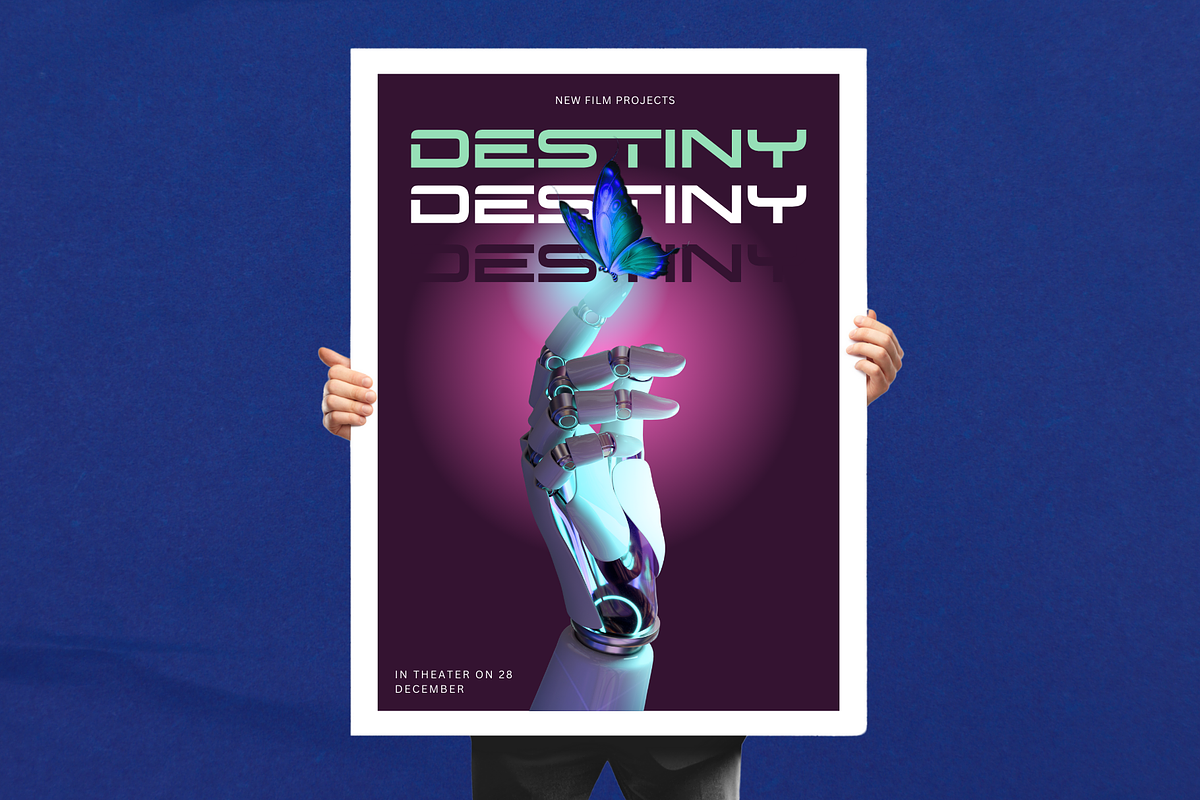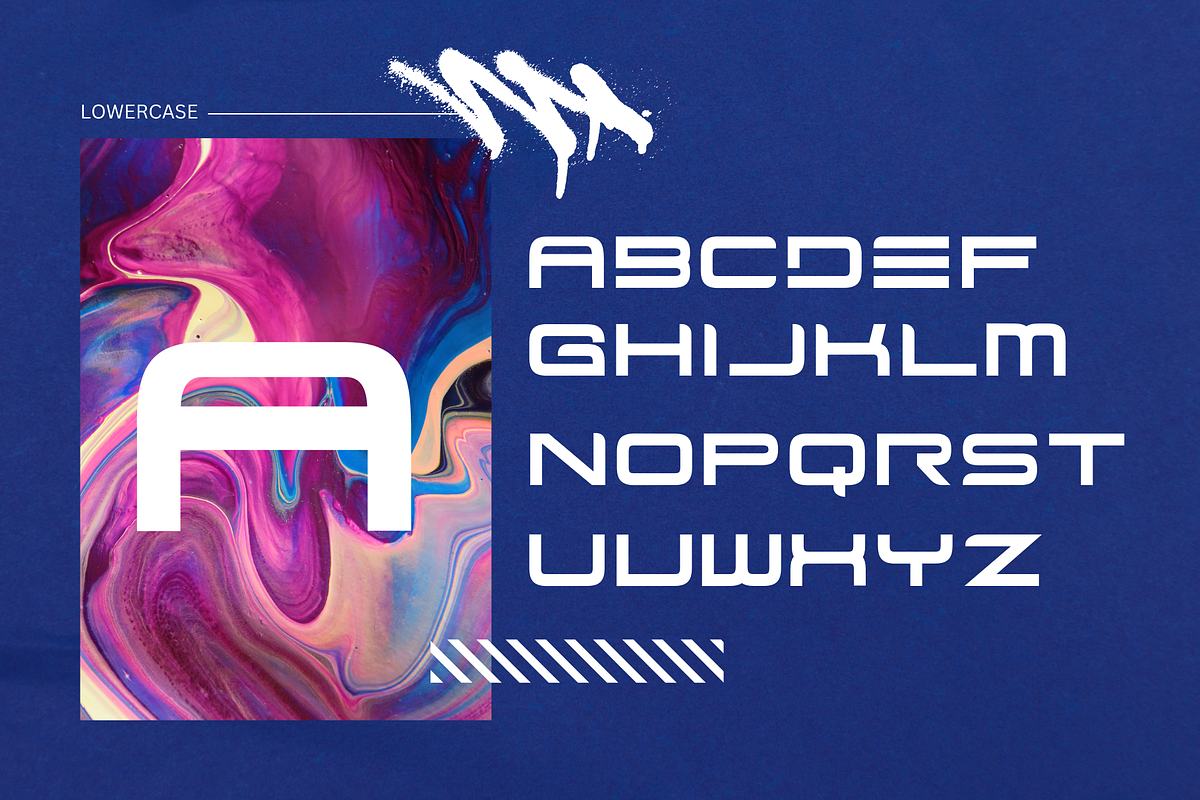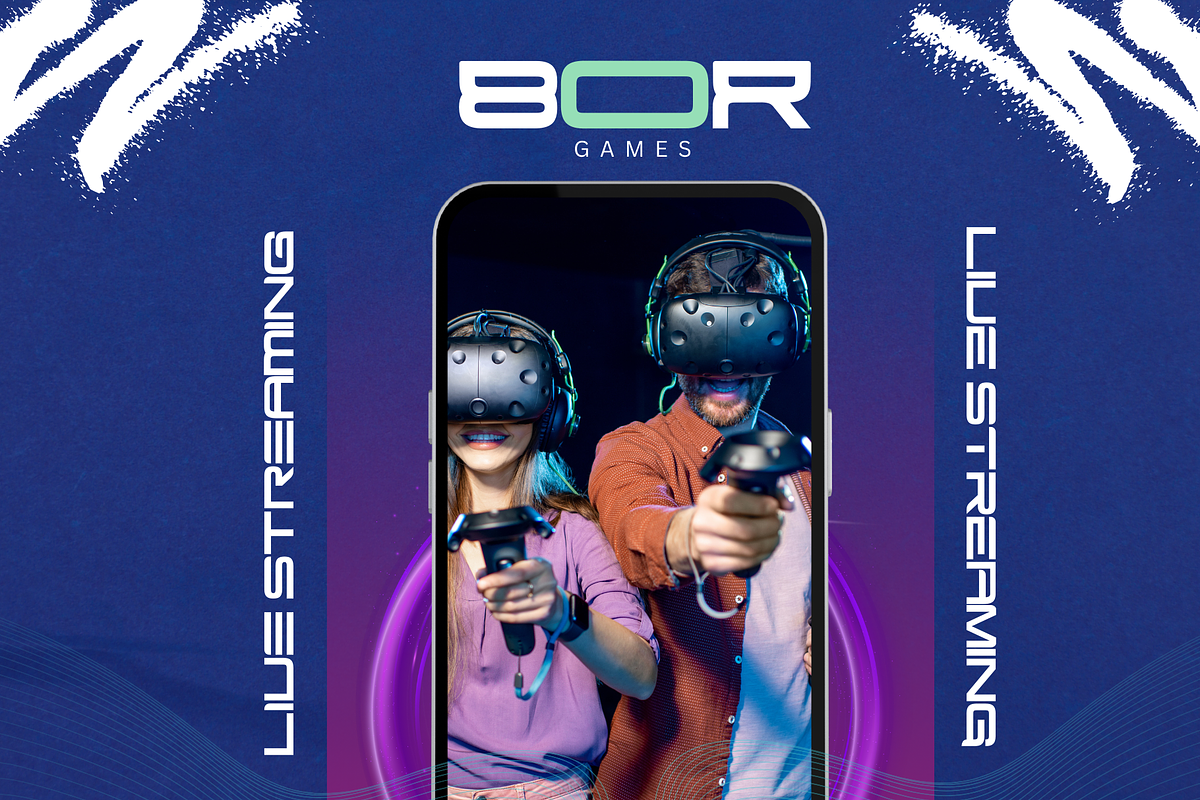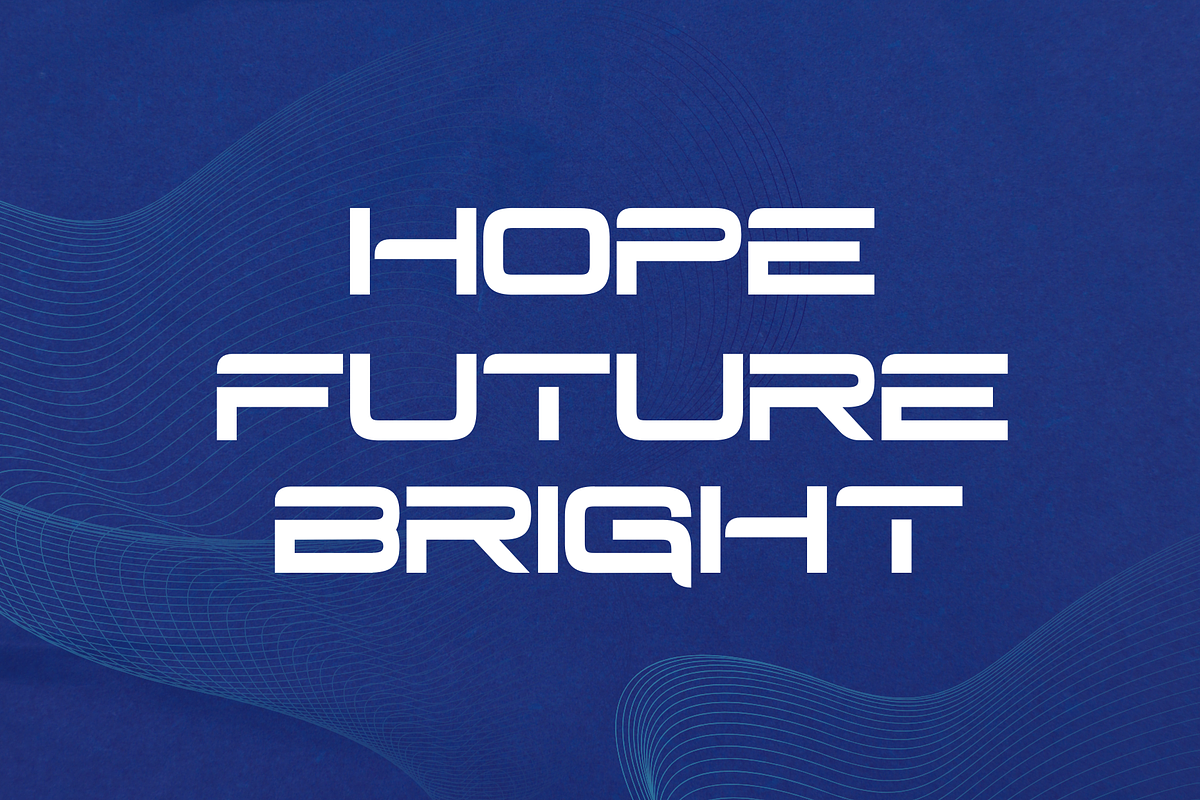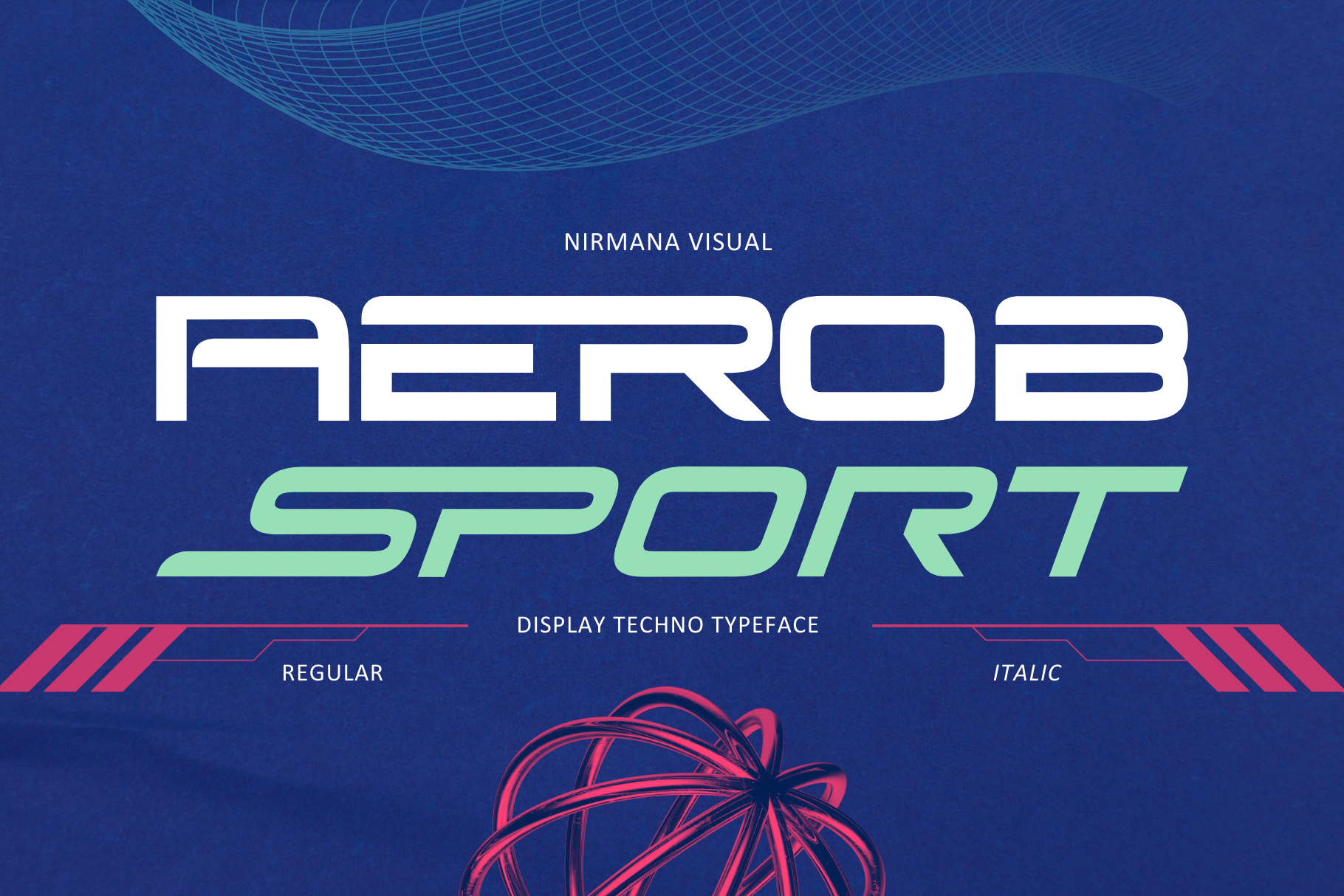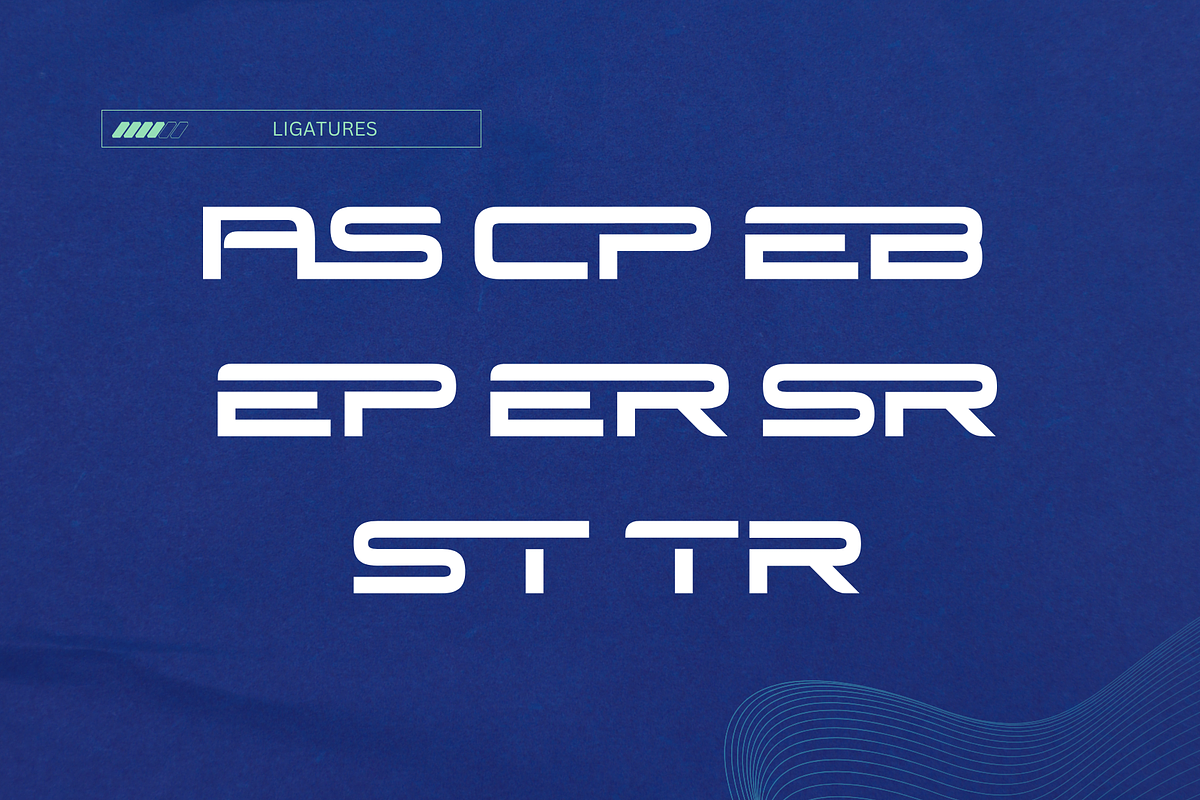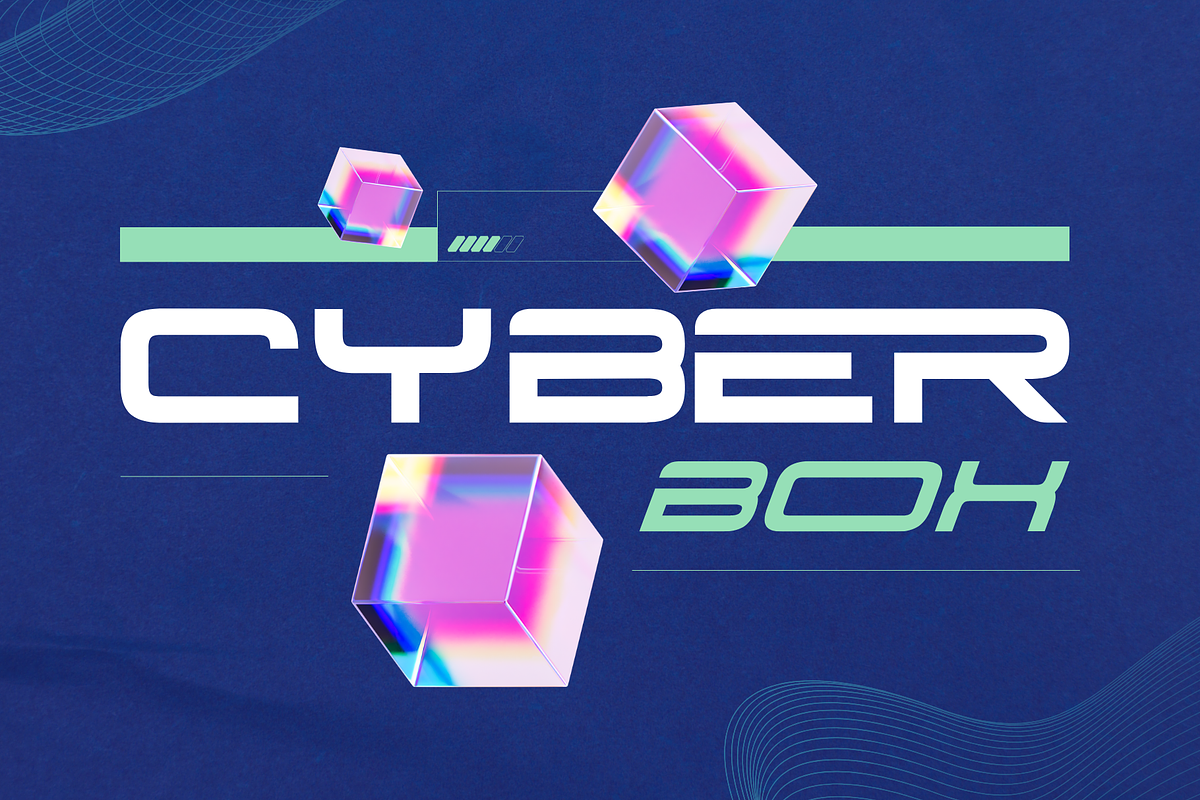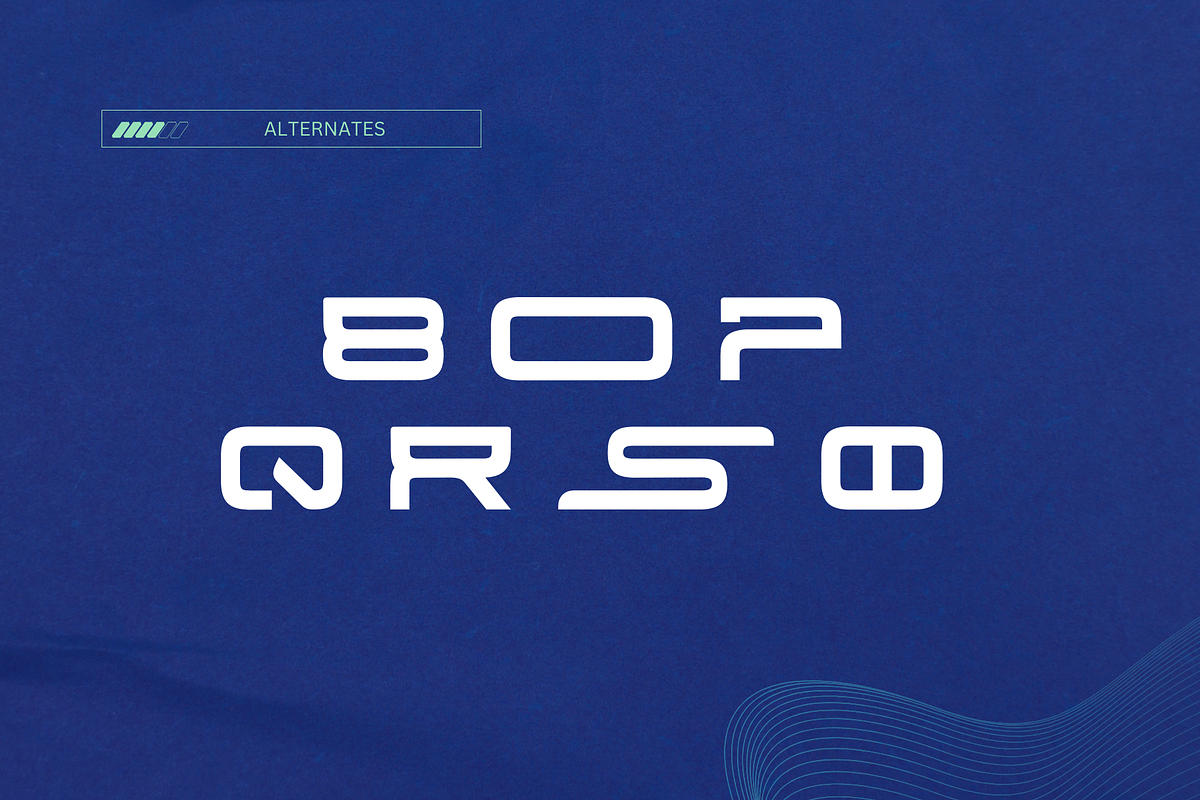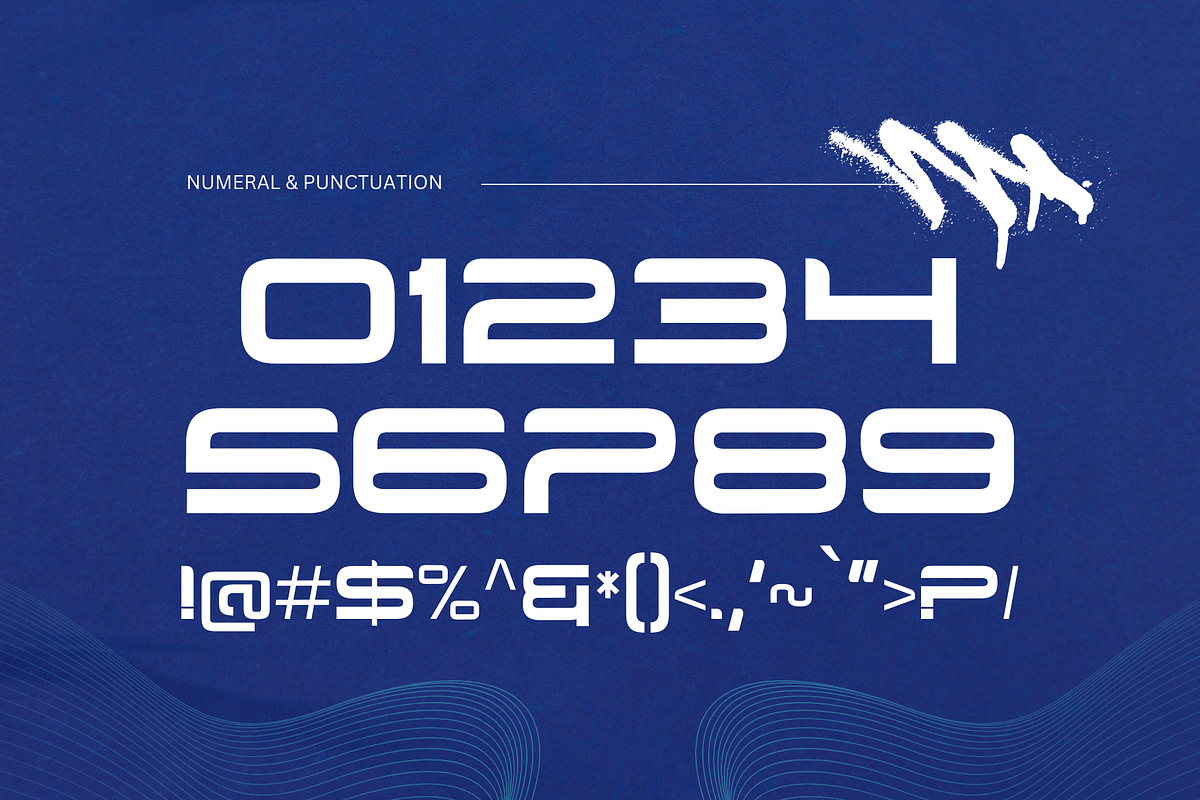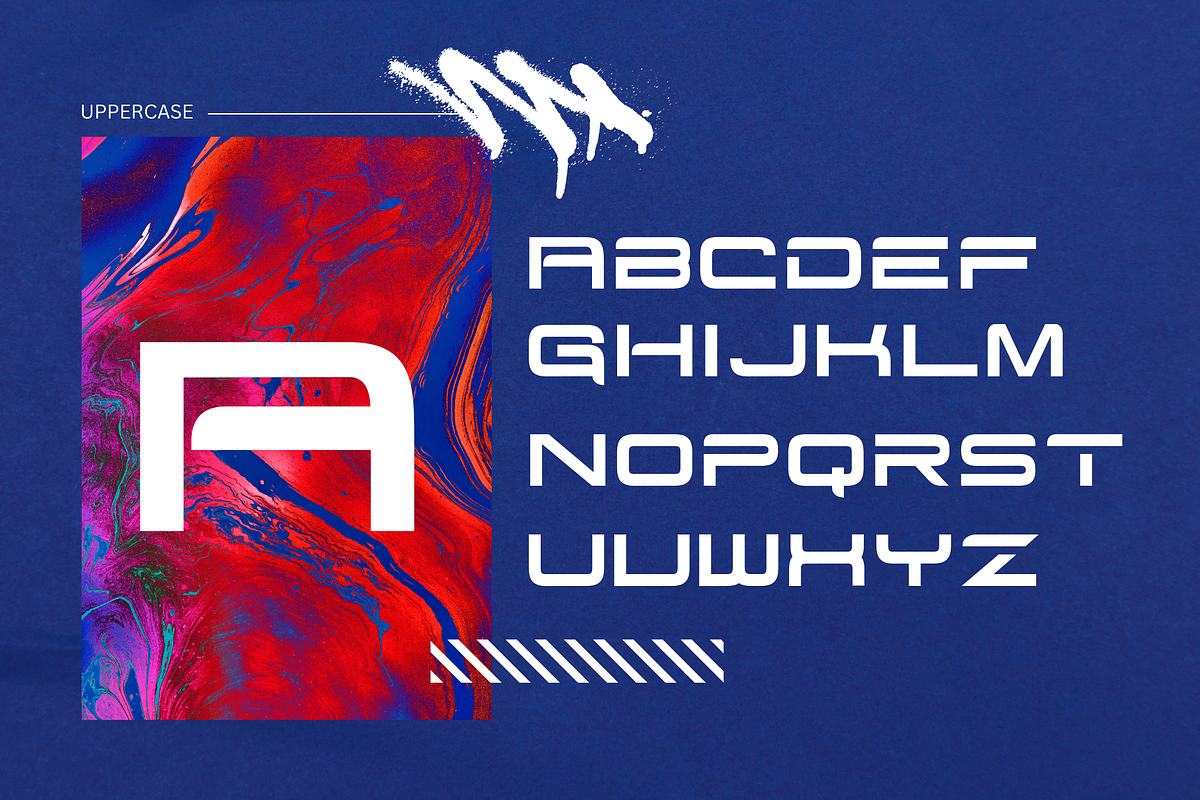
Aerob Sport - Techno Sport Typeface
Aerob Sport - Display Techno Typeface
Aerob Sport - Display Techno Typeface offers beautiful typographic harmony for a diversity of design projects, including logos & branding, social media posts, advertisements & product designs.